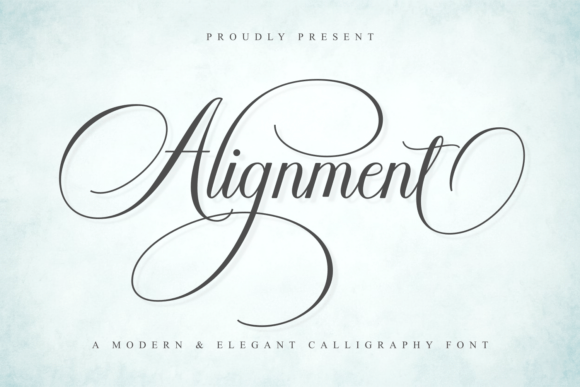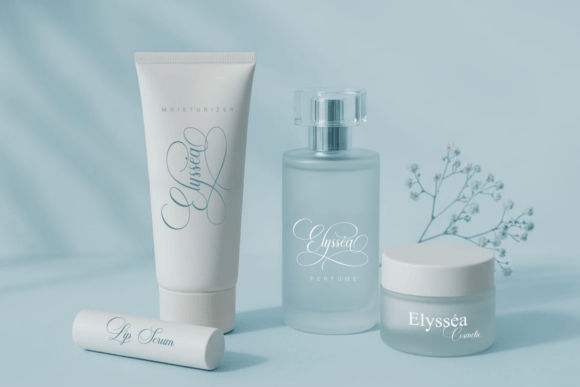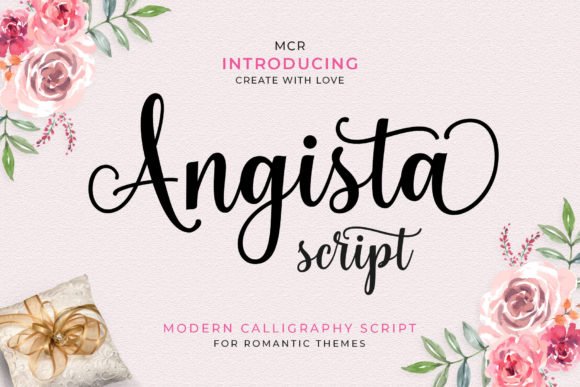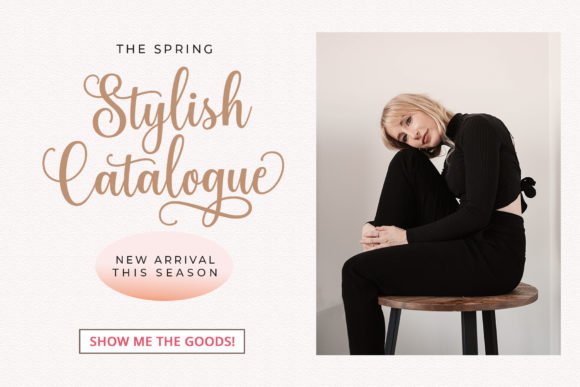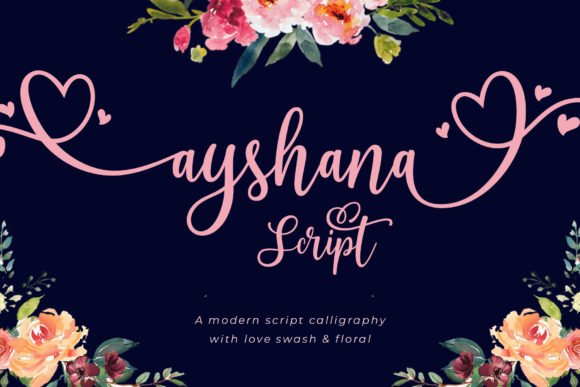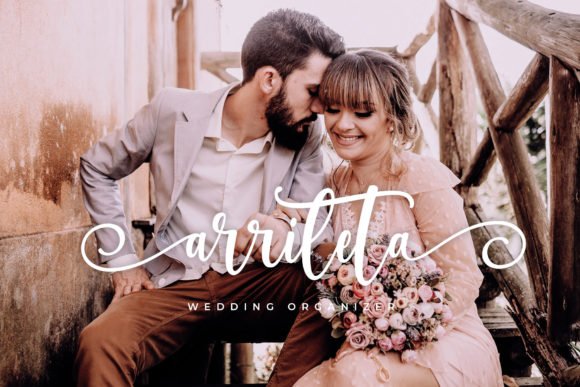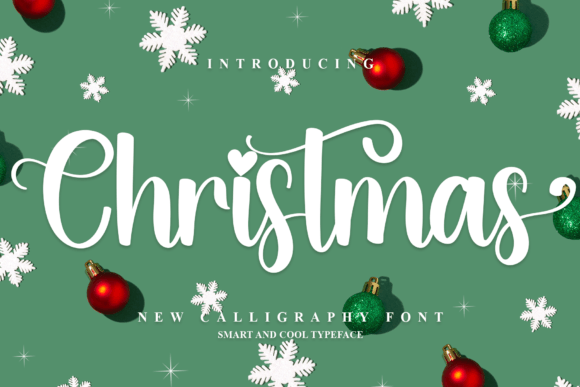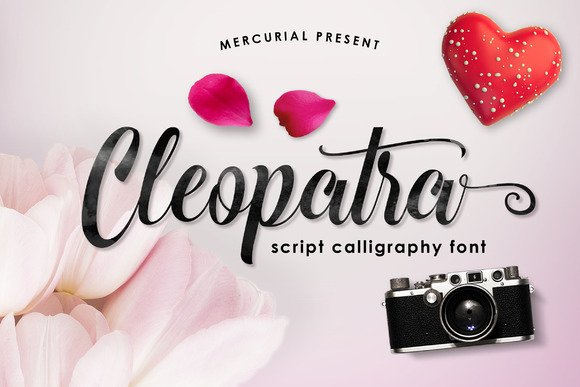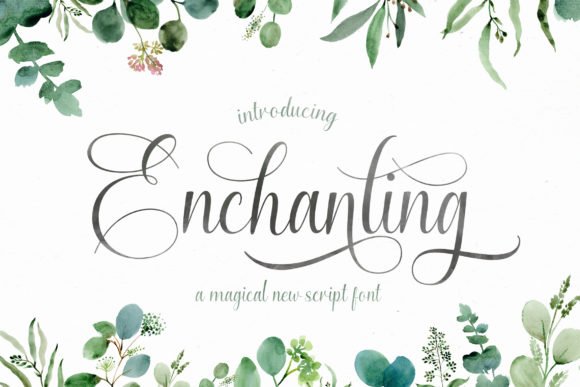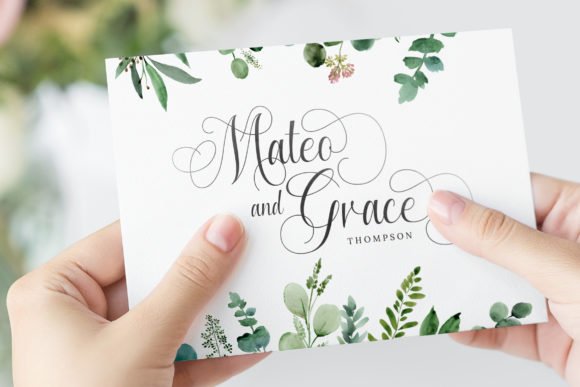
27 Mind-Blowing Calligraphy Script Fonts For Luxurious Branding
In the world of digital design, premium typography makes all the difference. I’ve compiled 27 elite calligraphy fonts to help you achieve a luxurious look for everything from wedding stationery to sleek logo concepts.
Mind-Blowing Calligraphy Script Fonts for High-End Visual Identities
High-end visual identities rely heavily on subtle details, fluid rhythm, and refined letterforms to communicate exclusivity. Standard typography rarely conveys the bespoke artistry necessary for upscale brands, editorial layouts, or high-fashion packaging.
This handpicked compilation showcases 27 extraordinary calligraphy script typefaces featuring graceful strokes, dramatic flourishes, and balanced proportions. These letterforms infuse high-end aesthetic value directly into modern design projects, setting a new benchmark for boutique and luxury branding.
1. Maddison: A Sweet Calligraphy Script Font For Romantic Wedding Designs
I adore how Maddison brings a rhythmic, dancing energy to the baseline, making it a standout calligraphy script font for anyone seeking a romantic touch. It strikes that rare balance between being casual and sophisticated, which is perfect for wedding invitations, heartfelt greeting cards, and elegant branding projects.
I appreciate that this typeface is PUA encoded, giving you full access to its lovely swashes and glyphs without needing complex software. Whether you are designing social media quotes or luxury product packaging, its sweet flow adds a personal, hand-drawn feel that immediately connects with the viewer.
2. Vintage Signature: Sophisticated Calligraphy Script Font For Elegant Wedding Invitations
When choosing a luxury calligraphy script font for high-end projects, Vintage Signature immediately stands out with its timeless sophistication. I love how the sweeping curves and balanced forms make every letter feel like a deliberate, hand-penned work of art. It’s an ideal choice for wedding stationery, boutique branding, or luxury product labels where you want to leave a lasting impression of grace and class.
Beyond its refined rhythm, I appreciate that this calligraphy script font is PUA encoded, making all those beautiful decorative elements easy to use. Whether I am working on editorial headers or personalized gift cards, the feminine edge and artistic flair add a high-end touch effortlessly. It is truly more than just a typeface; it is a signature of classic style for any creative toolkit.
3. Belgia Calligraphy Font: Beautiful Swashes For Professional Creative Projects
I love how Belgia Calligraphy manages to feel both classic and refreshing at the same time. It is a stunning calligraphy script font that balances luxurious letter connections with a clean, feminine aesthetic that remains remarkably easy to read. Whether you need something for formal invitations, chic restaurant menus, or high-end logos, this typeface adds a polished, professional touch that feels carefully hand-crafted.
I appreciate that it includes PUA encoding, meaning you can dive into all those beautiful character variations and decorative swashes without any technical headaches. It is a versatile choice for fashion branding, wedding cards, or even book covers. If you want a calligraphy script font that flows naturally across the page, this is a top-tier option for modern advertising and elegant stationery.
4. Bridgerton Font: A Glamorous Choice For Your Wedding Invitations
Taking a look at Bridgerton Font, you immediately notice a level of exquisite detail that brings a modern touch to classic decorative copperplate styles. This calligraphy script font is incredibly smooth and glamorous, offering a sensual feminine energy that remains very easy to read. It works wonders for formal invitations, luxury logos, or elegant restaurant menus, where the luxurious letter connections can truly shine.
My favorite part about this typeface is how user-friendly it is, thanks to the Unicode PUA encoding that lets you access all those fancy extra characters without needing specialized software. I highly recommend it for wedding cards, high-end packaging, or fashion magazines. Whether you are designing stationery or makeup labels, this font adds a refined, professional finish to any advertising project.
5. Alignment: High End Calligraphy Script Font For Beauty Projects
I love how Alignment effortlessly captures a sense of modern luxury with its smooth, handwritten strokes. It is a stunningly feminine calligraphy script font that feels both stylish and high-end, making it a dream for anyone working on branding, logo design, or luxury packaging. The flowing curves bring a romantic, professional look to digital and print designs alike.
Final Thoughts
Finding your favorite calligraphy script font is an exciting journey for any creator. Whether you’re working on wedding stationery or branding, these selections offer the luxurious touch your clients will absolutely fall in love with.